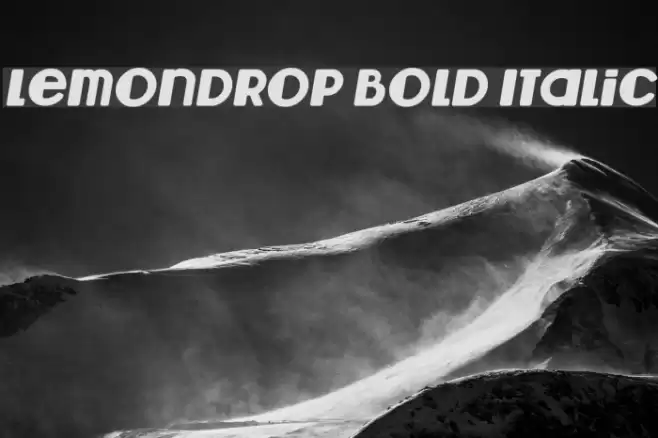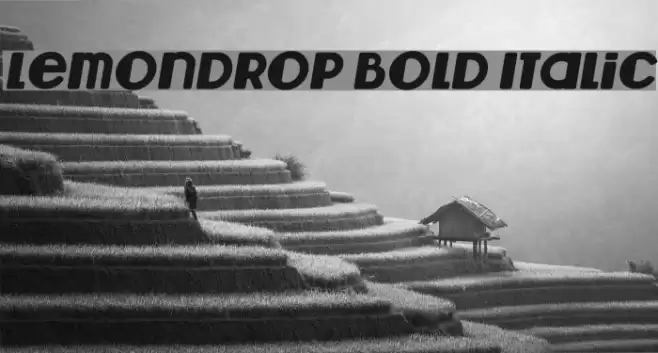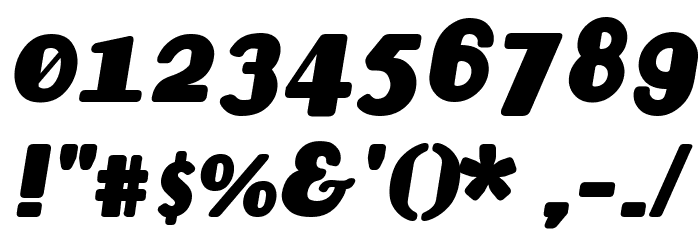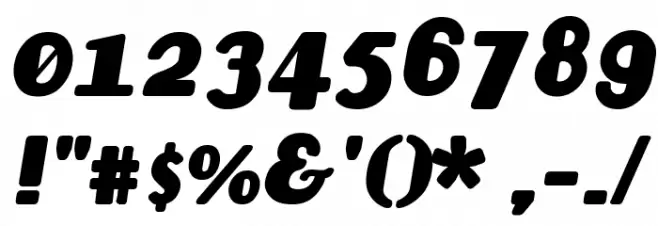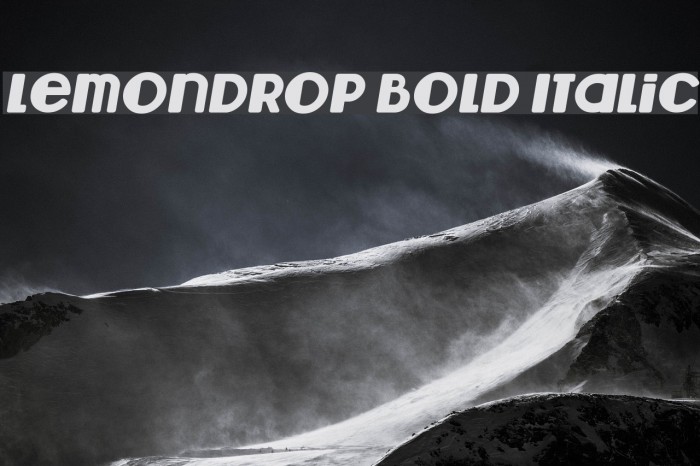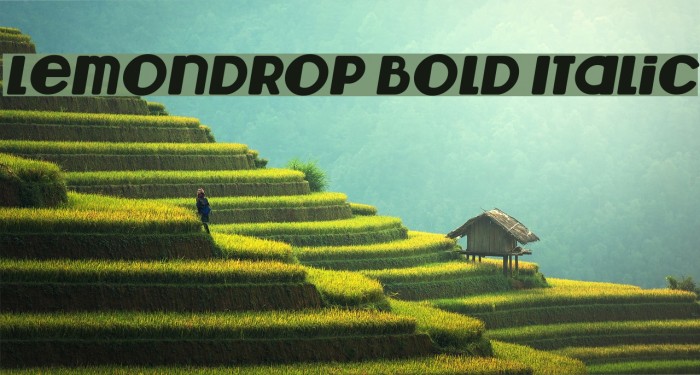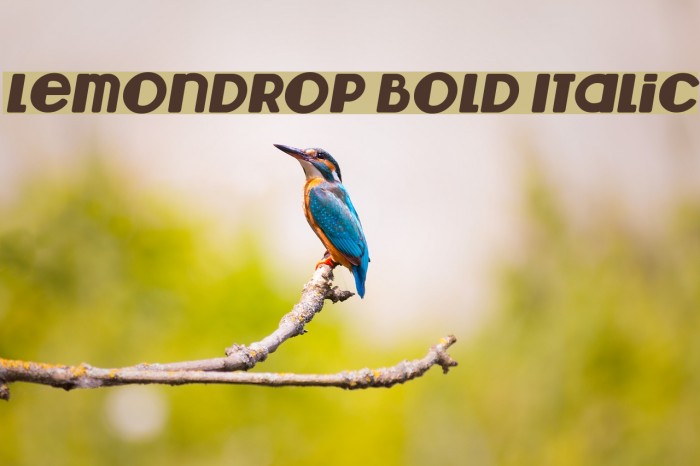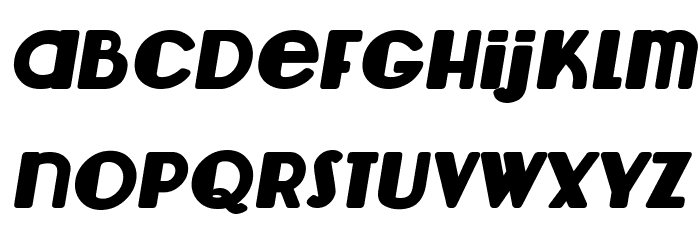
Lemondrop Bold Italic Font
Lemondrop Bold Italic Description
This font features a bold and italic style with a playful and dynamic appearance. The characters are slightly slanted, giving a sense of movement and energy. The strokes are thick and rounded, contributing to a friendly and approachable look. The uppercase and lowercase letters maintain a consistent style, with smooth curves and a uniform weight. The numerals are bold and easy to read, matching the overall aesthetic. Special characters are well-integrated, maintaining the same bold and rounded characteristics. This font is ideal for projects that require a lively and engaging typeface.
A bold, italic font with a playful and dynamic style from Uncategorized fonts.
- Proposed Projects: Great for children's books, playful branding, posters, and creative advertising.
- Overall Style: Playful